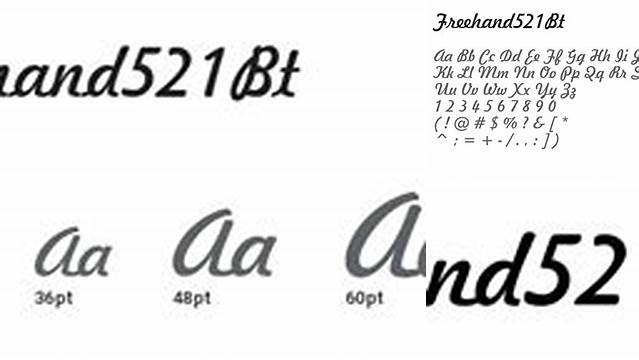
Freehand 521 BT Font: Your Ultimate Guide
Hey guys! Ever stumbled upon a font that just feels right? Something that screams personality and authenticity? Well, let's dive deep into the world of Freehand 521 BT font. This isn't just another typeface; it's a statement. Whether you're a seasoned designer or just starting, understanding this font can seriously up your creative game. Let's explore everything about it, from its history to how you can use it in your projects.
What is Freehand 521 BT Font?
Freehand 521 BT is a distinctive typeface that emulates the look of natural handwriting. It's part of the Bitstream Charter family, known for its clarity and legibility even at smaller sizes. What sets Freehand 521 BT apart is its casual, flowing strokes, giving it a personal and approachable feel. This font is perfect for projects that require a touch of informality and warmth. Think greeting cards, invitations, and even branding materials for businesses that want to project a friendly image. The beauty of Freehand 521 BT lies in its ability to balance readability with character, making it a versatile choice for various design applications. Its unique style captures the essence of handwritten text, adding a human touch that can make your message more engaging and memorable. Understanding the nuances of this font can help you leverage its strengths to create visually appealing and effective designs.
History of Freehand 521 BT
The story of Freehand 521 BT is intertwined with the evolution of digital typography. Developed by Bitstream, one of the pioneering companies in digital fonts, it emerged during a period when designers were striving to replicate the warmth and personality of traditional calligraphy in the digital realm. Bitstream aimed to create a font that was both functional and aesthetically pleasing, capturing the essence of handwritten text while maintaining legibility. The creation of Freehand 521 BT reflects a broader trend in font design, where the goal was to humanize digital communication. This font quickly gained popularity among designers who sought to add a personal touch to their projects. Its unique style and versatility made it a favorite for a wide range of applications, from print media to digital design. The history of Freehand 521 BT underscores the ongoing quest to blend technology with artistry, resulting in typefaces that are both innovative and timeless.
Key Characteristics of Freehand 521 BT Font
One of the most defining characteristics of Freehand 521 BT is its emulation of natural handwriting. Unlike more formal or structured fonts, Freehand 521 BT features flowing, irregular strokes that mimic the way a person would write with a pen or marker. This gives the font a casual and approachable feel, making it ideal for projects that require a personal touch. Another key characteristic is its excellent readability, even at smaller sizes. This is due to the careful design of each letterform, ensuring that the font remains clear and legible across various media. Additionally, Freehand 521 BT offers a wide range of glyphs and characters, allowing for flexibility in design and support for multiple languages. Its rounded terminals and slightly slanted posture further contribute to its unique visual appeal, setting it apart from other handwriting-style fonts. Understanding these key characteristics is essential for effectively utilizing Freehand 521 BT in your design projects.
Freehand 521 BT Font: A Conclusion
So there you have it, guys! A deep dive into the world of Freehand 521 BT font. From its history and characteristics to its best uses and potential pitfalls, we've covered it all. Hopefully, you now have a better understanding of this unique and versatile font and how you can use it to enhance your designs. Remember, Freehand 521 BT is all about adding a personal touch, so use it strategically and don't be afraid to experiment. With a little creativity, you can use this font to create designs that are both beautiful and engaging. Now go forth and unleash your inner designer!